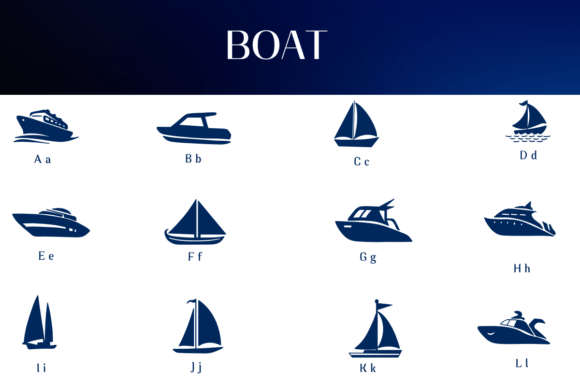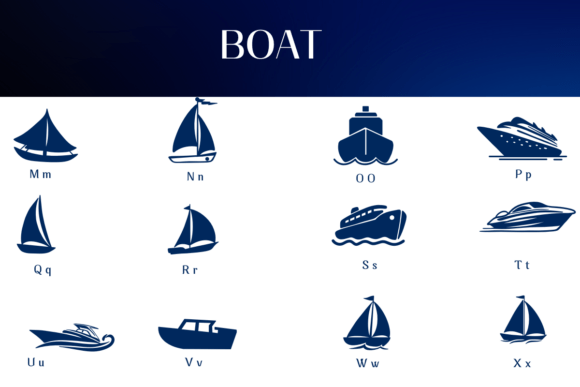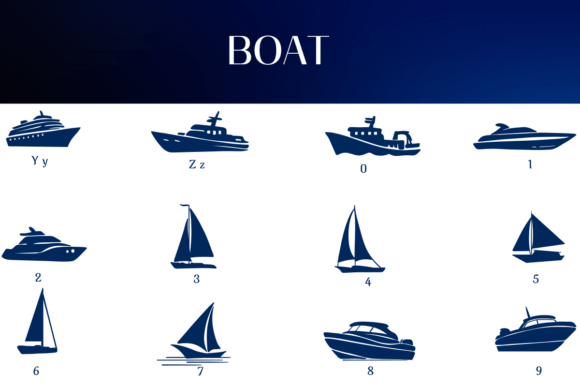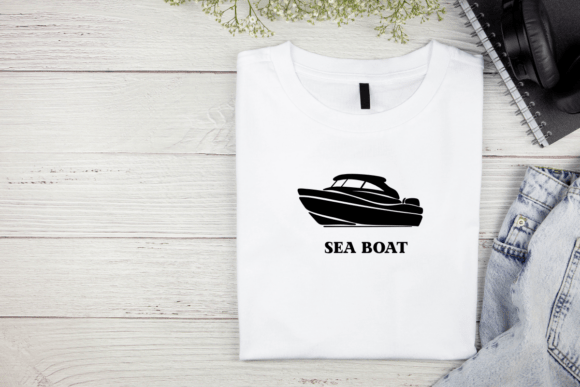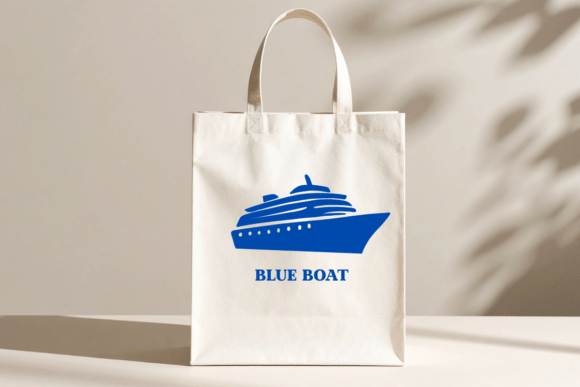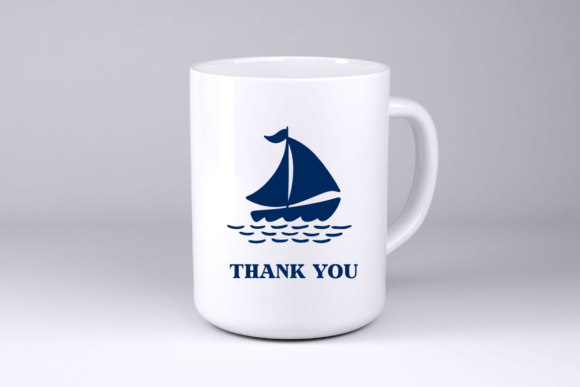
Introducing Boat Font: A Cute Dingbats Font for Creative Projects
Are you a designer, crafter, or DIY enthusiast looking for a unique and playful font to add a touch of personality to your projects? Look no further than Boat Font, a charming dingbats font that’s sure to make a splash!
What is Boat Font?
Boat Font is a delightful dingbats font that features adorable boat illustrations, perfect for adding a whimsical touch to your designs. The font is carefully crafted to provide a fun and playful look that’s ideal for a wide range of creative projects, from crafting and scrapbooking to graphic design and digital art.
Key Features of Boat Font
- Cute and Playful Design: Boat Font features charming boat illustrations that are sure to bring a smile to your face.
- Dingbats Font Style: This font is a classic dingbats font, making it easy to use and incorporate into your designs.
- High-Quality Illustrations: The font includes high-quality illustrations that are crisp and clear, ensuring they look great in any size or resolution.
Uses for Boat Font
Boat Font is a versatile font that can be used in a wide range of creative projects, including:
- Scrapbooking: Add a touch of whimsy to your scrapbook pages with Boat Font’s adorable boat illustrations.
- Crafting: Use Boat Font to create custom labels, cards, and other craft projects that showcase your personality.
- Graphic Design: Incorporate Boat Font into your graphic design projects, such as brochures, flyers, and posters, to add a playful touch.
- Digital Art: Use Boat Font to create unique and eye-catching digital art pieces, such as illustrations and graphics.
Why Choose Boat Font?
With so many fonts available, why choose Boat Font? Here are just a few reasons:
- Unique and Playful: Boat Font offers a unique and playful look that’s sure to set your projects apart.
- High-Quality Illustrations: The font includes high-quality illustrations that are crisp and clear, ensuring they look great in any size or resolution.